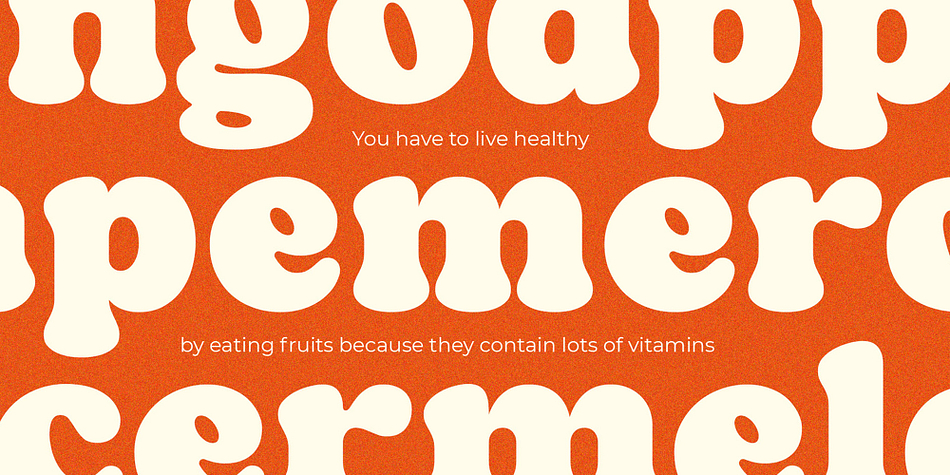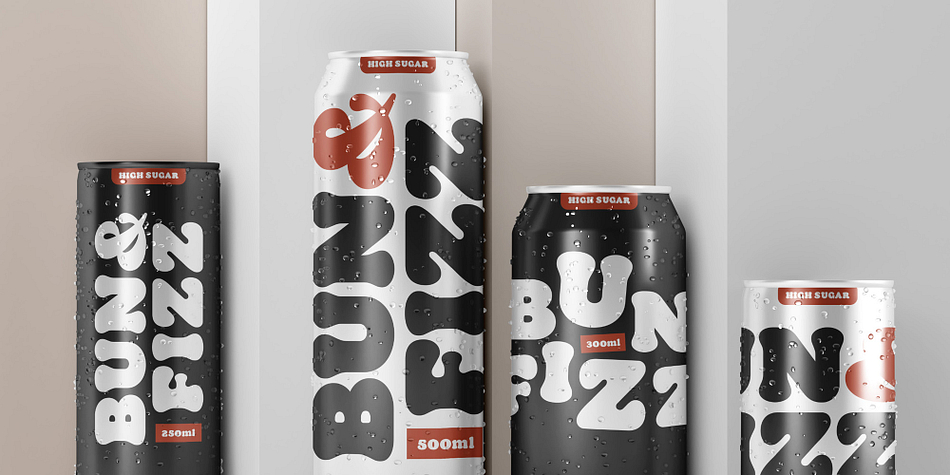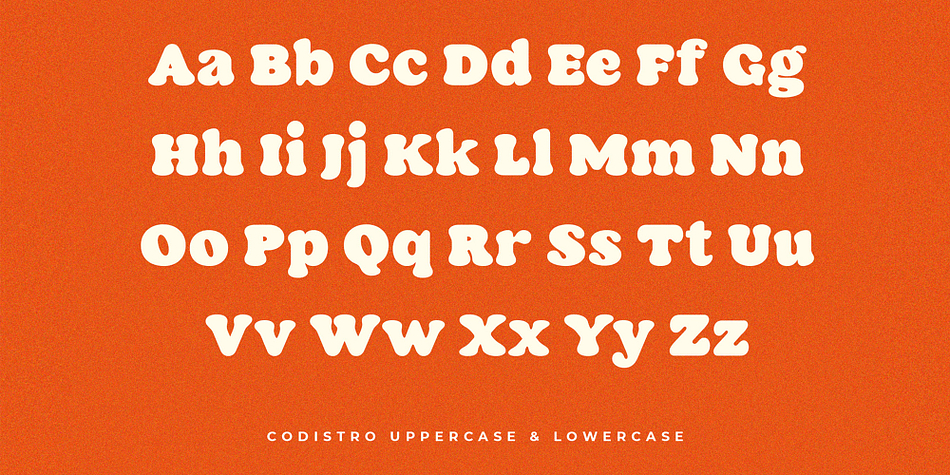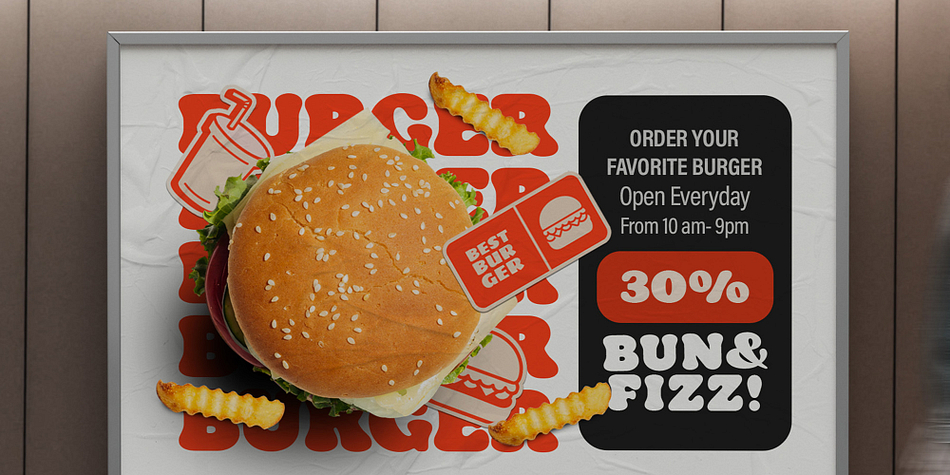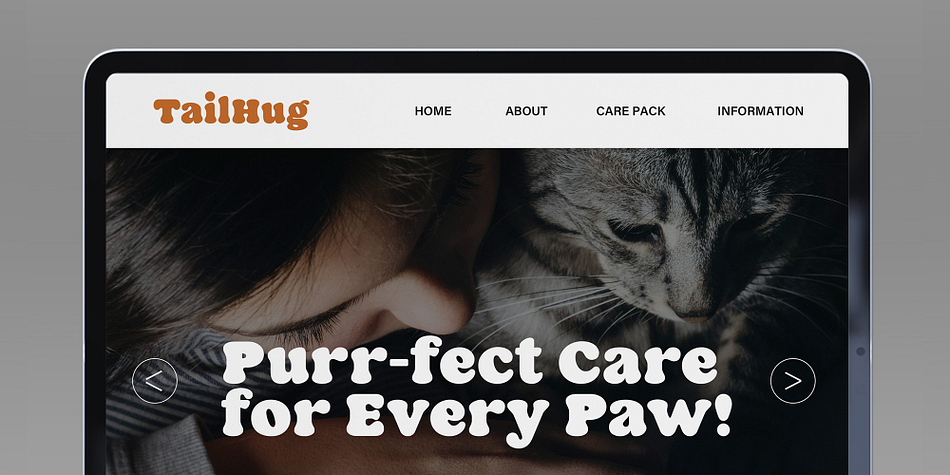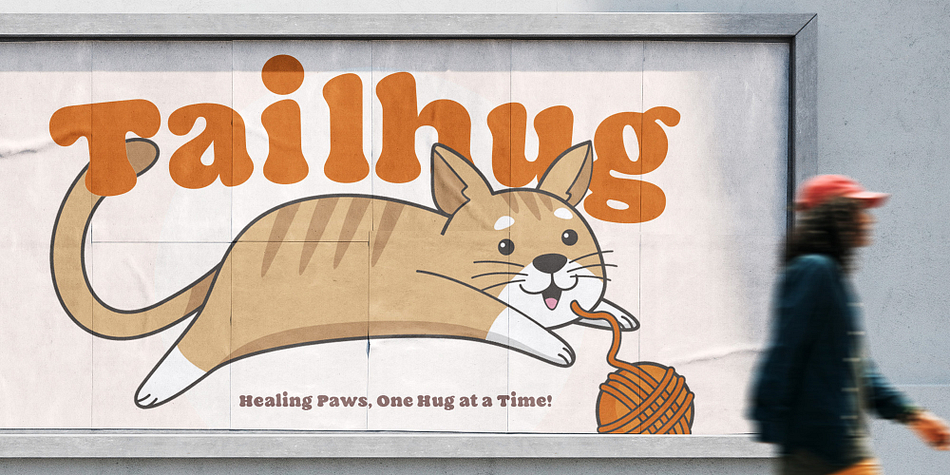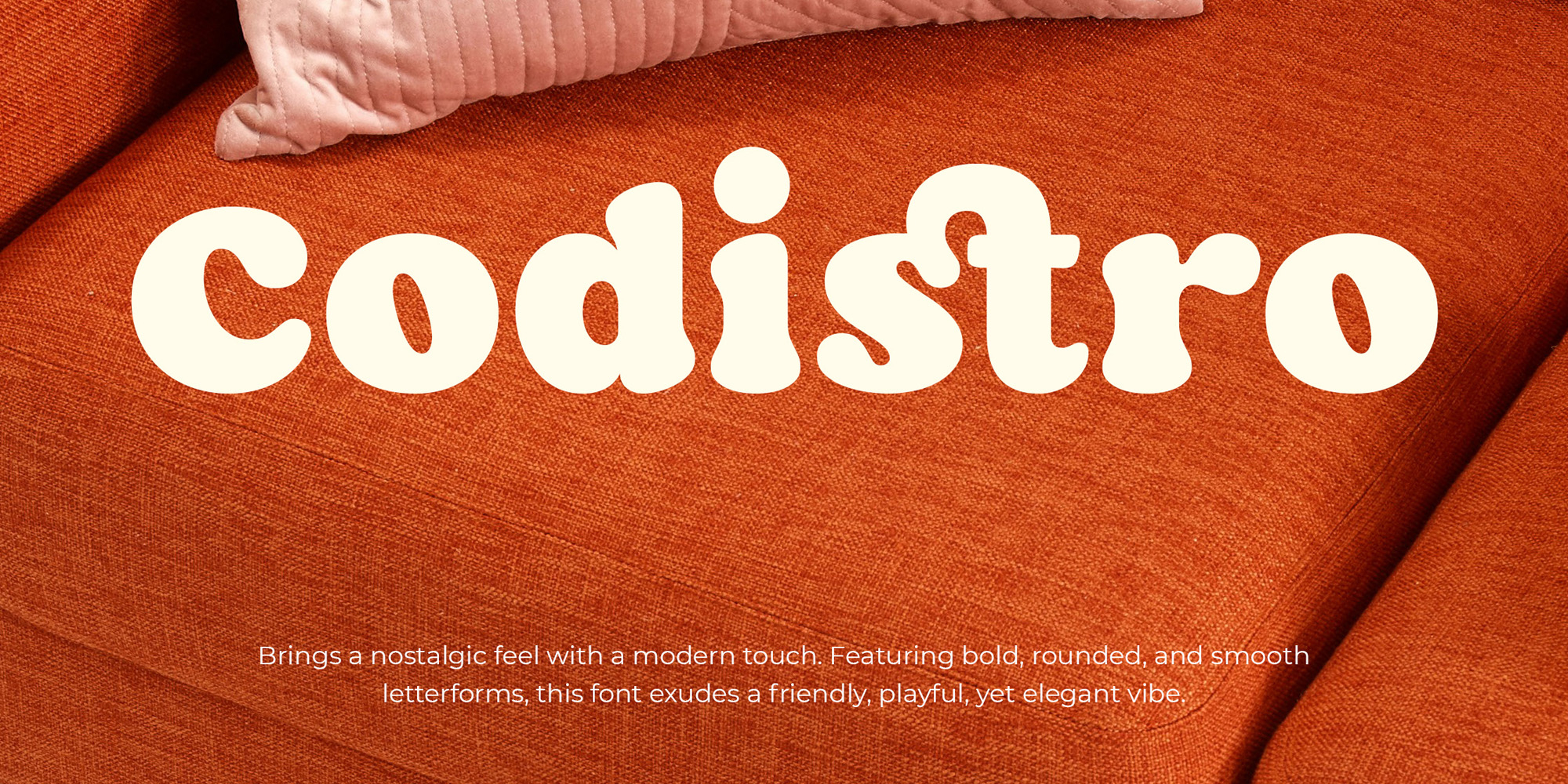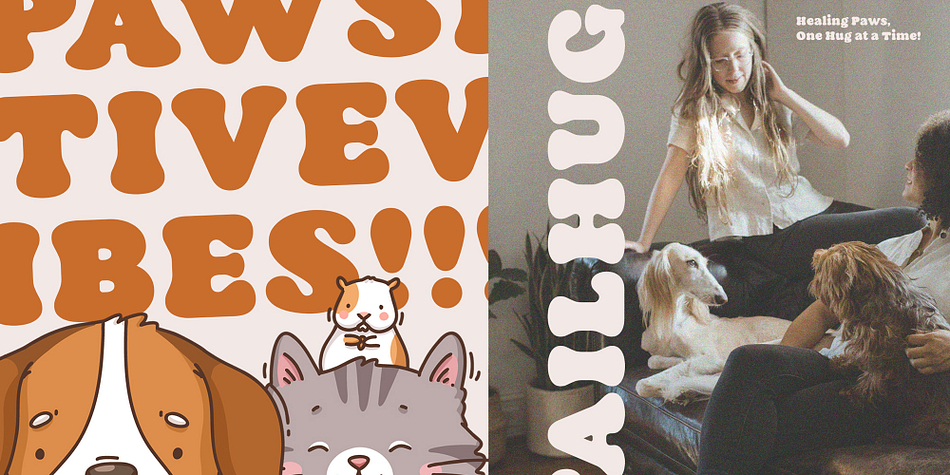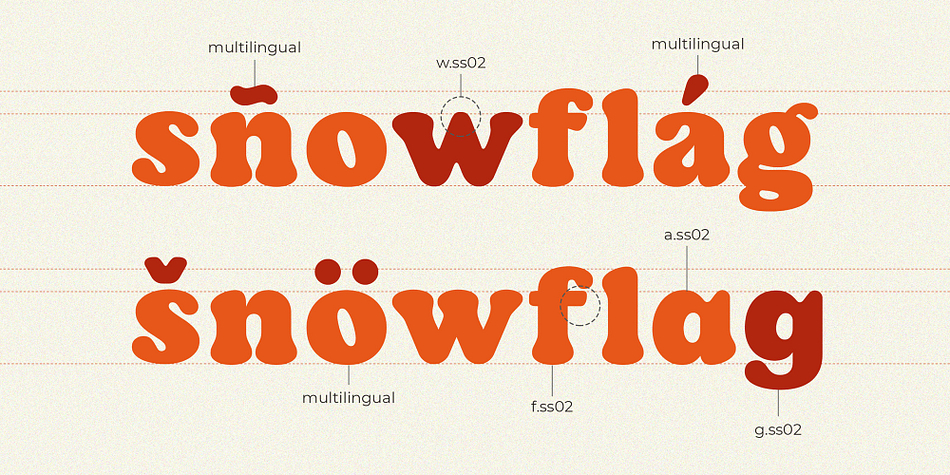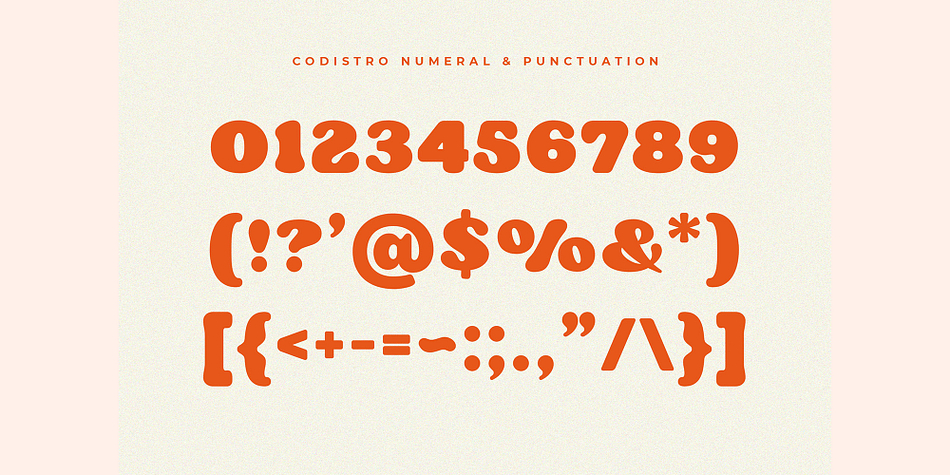
Codistro
Codistro is a retro font family published by Typia Nesia.
Codistro - Soft Retro Classic Typeface - Modern Summer Bold Vintage Serif Display Font
Codistro is a Soft Retro Classic Typeface that brings a perfect blend of nostalgia and modernity. Its smooth curves and bold letterforms create a timeless aesthetic, making it ideal for vintage-inspired designs with a contemporary touch, it’s perfect for branding, logos, posters, packaging, social media graphics, editorial headlines, advertising, merchandise, magazine, website headers and any creative project that seeks a blend of retro charm and contemporary elegance. Comes with a complete set of uppercase and lowercase letters, punctuation, and numerals to ensure full versatility in any design. It includes ligatures and alternates, adding extra style and uniqueness to your typography. Additionally, it supports multiple languages, making it accessible for various global projects. Designed for graphic designers, branding experts, and creative professionals, Codistro is a versatile font that offers aesthetic precision, high readability, and a strong visual impact for both digital and print projects.